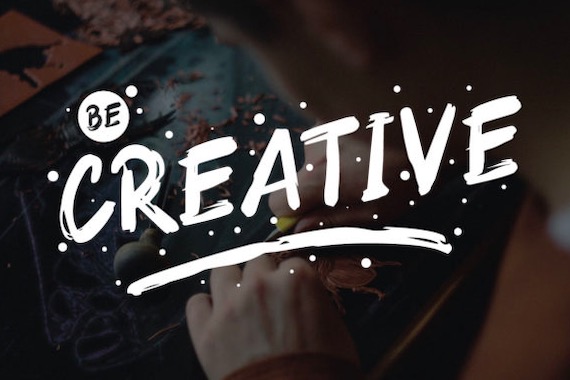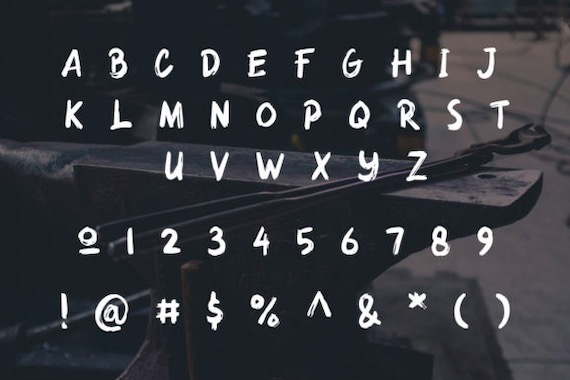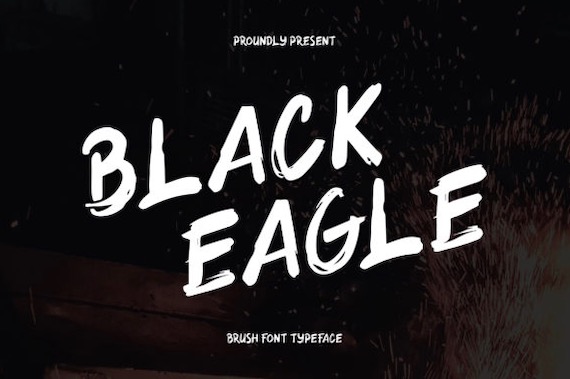
Black Eagle Font will take your design projects into a great perfect art product. This handwritten script font has a natural brush style along with an old school brush texture look.
Black Eagle Brush Font